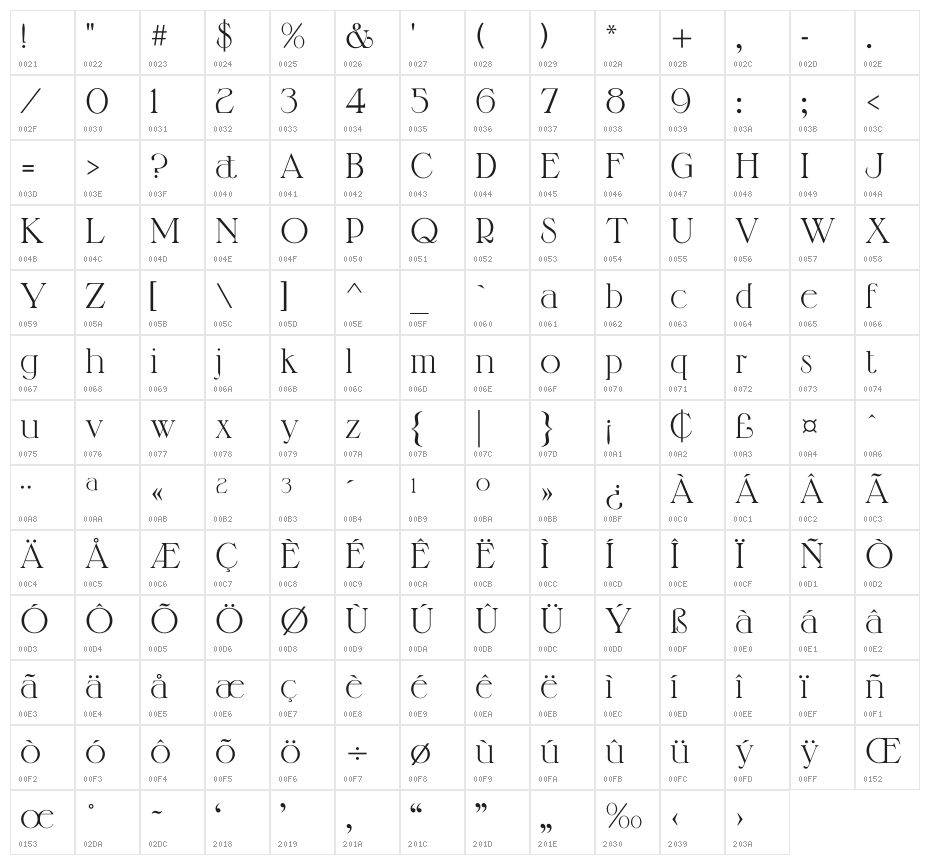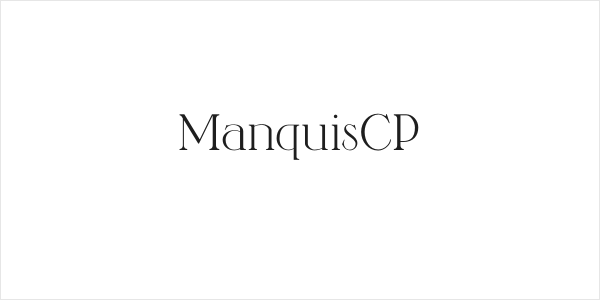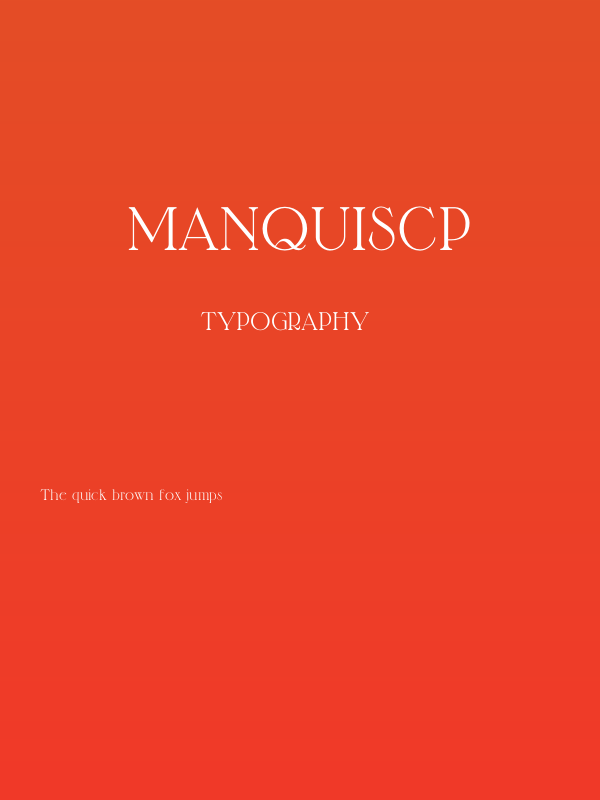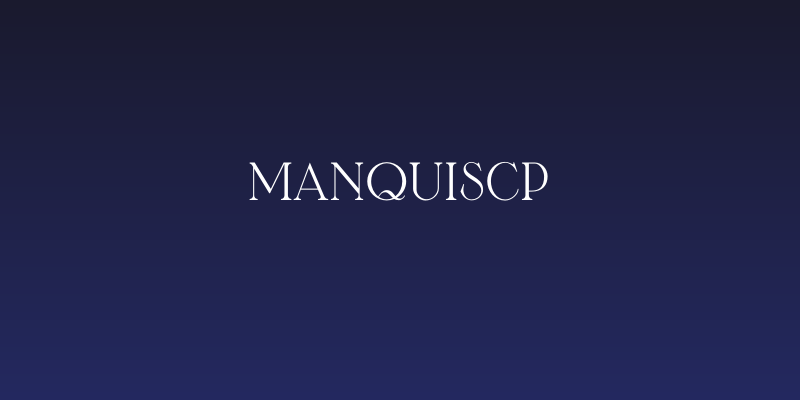
ManquisCP Font
ManquisCP Description
This font features a classic serif style with elegant, thin strokes and high contrast between thick and thin lines. The uppercase letters are tall and stately, with sharp serifs that add a touch of sophistication. Lowercase letters maintain a consistent style, offering a harmonious blend of curves and angles. The numerals are distinctive, with a slight flair that complements the overall design. Special characters are crafted with the same attention to detail, ensuring a cohesive appearance across all glyphs. This font exudes a timeless elegance, making it suitable for a variety of formal and creative applications.
| Proposed Projects | Ideal for editorial design, book covers, luxury branding, and formal invitations. |